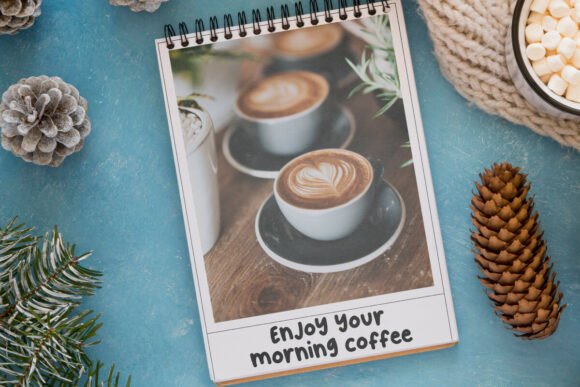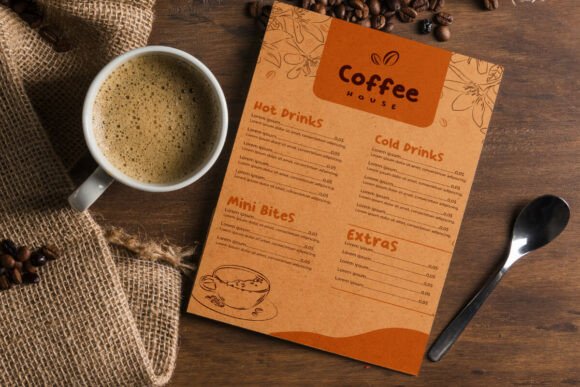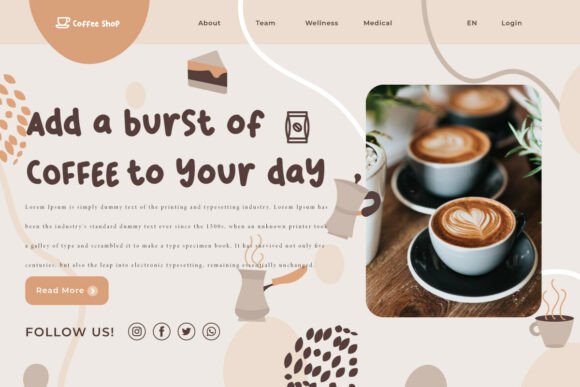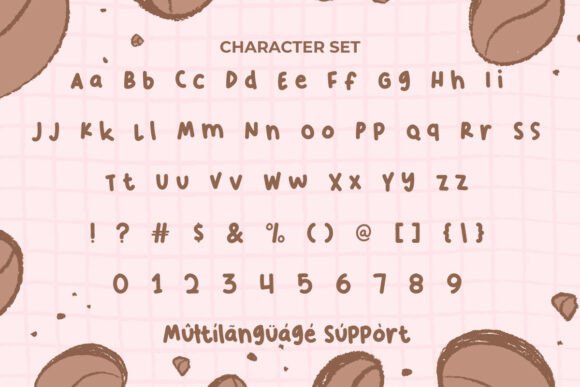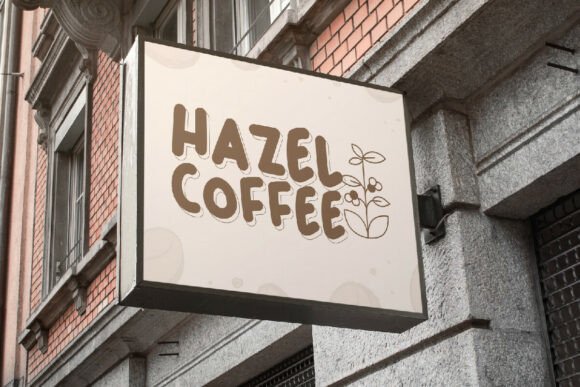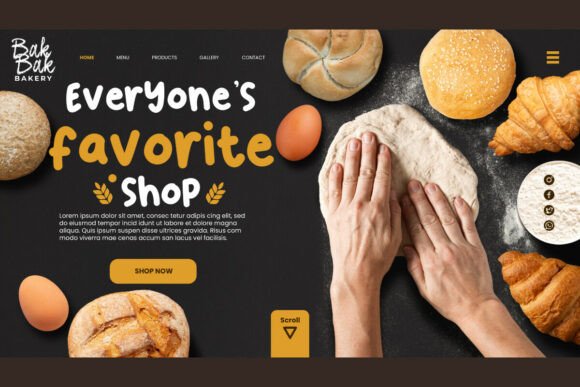
Introducing Hazelnut Coffee Font: The Perfect Blend of Charm and Creativity
Are you tired of using the same old fonts for your design projects? Look no further! Hazelnut Coffee Font is a fun and playful display font that is inspired by the richness and warmth of delicious coffee. With its cute and bubbly personality, this font is perfect for adding a touch of whimsy and charm to any design.
A Font that’s as Rich as Your Favorite Morning Brew
Hazelnut Coffee Font is a handcrafted display font that is designed to bring a cozy, artisanal touch to every design project. With its bold strokes and smooth curves, this coffee-inspired typeface is perfect for branding, logos, packaging, quotes, and social media content. Whether you’re designing for a small business, a trendy café, or a personal project, Hazelnut Coffee Font is the perfect choice.
Hazelnut Coffee Font is a versatile font that can be used for a wide range of design projects, including:
• Apps
• Banners
• Blogs
• Branding
• Covers
• Flyers
• Headers
• Logos
• Menu boards
• Mugs
• Posters
• Quotes
• Signage
• Social media posts
• Stationery
• Stickers
• Titles
What Makes Hazelnut Coffee Font So Special?
So, what sets Hazelnut Coffee Font apart from other fonts? Here are just a few reasons why this font is a must-have for designers and crafters:
• Unique and Playful Design: Hazelnut Coffee Font has a one-of-a-kind design that’s sure to grab attention. Its playful and bubbly personality makes it perfect for adding a touch of whimsy to any design.
• Handcrafted with Love: This font is carefully handcrafted to ensure that every detail is perfect. The result is a font that’s both charming and professional.
• Versatile and Flexible: Hazelnut Coffee Font can be used for a wide range of design projects, from branding and logos to social media graphics and packaging.
• Easy to Read: Despite its playful design, Hazelnut Coffee Font is easy to read and understand, making it perfect for use in a variety of contexts.
How to Use Hazelnut Coffee Font in Your Designs
Using Hazelnut Coffee Font in your designs is easy! Here are a few tips to get you started:
• Pair it with Other Fonts: Hazelnut Coffee Font pairs well with other fonts, so feel free to experiment with different combinations to find the perfect look for your design.
• Use it for Headings and Titles: Hazelnut Coffee Font is perfect for use in headings and titles, where its playful design can really shine.
• Add it to Your Branding: If you’re looking for a way to add a touch of personality to your branding, Hazelnut Coffee Font is a great choice.
In conclusion, Hazelnut Coffee Font is a fun and playful display font that’s perfect for designers and crafters who want to add a touch of charm and creativity to their designs. With its unique and playful design, handcrafted with love, and versatile and flexible, this font is sure to become a favorite in your design toolkit. So why wait? Download Hazelnut Coffee Font today and start creating designs that are as rich and warm as your favorite morning brew!